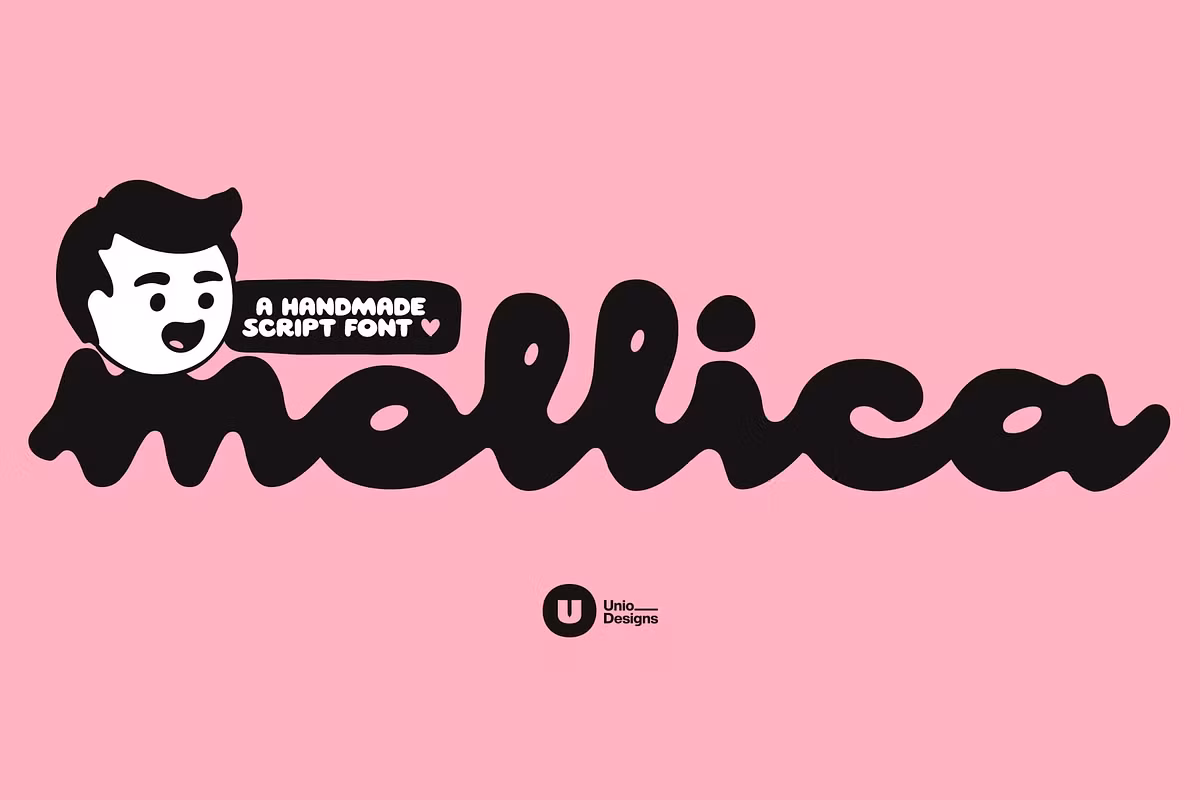
Mollica - Hand drawn script Free Download
Mollica – Hand Drawn Script Free Download
Mollica – Hand Drawn Script Free Download is a charming and organic script typeface that captures the warmth and personality of real handwriting. With its fluid strokes, slightly rough edges, and relaxed feel, Mollica is perfect for branding, greeting cards, quotes, packaging, and handmade product labels.
Designed to add a personal touch, Mollica – Hand Drawn Script Free Download includes ligatures and stylistic alternates that enhance its handwritten authenticity. Whether you're aiming for rustic, feminine, or cozy aesthetics, this font helps bring your message to life with character and ease.